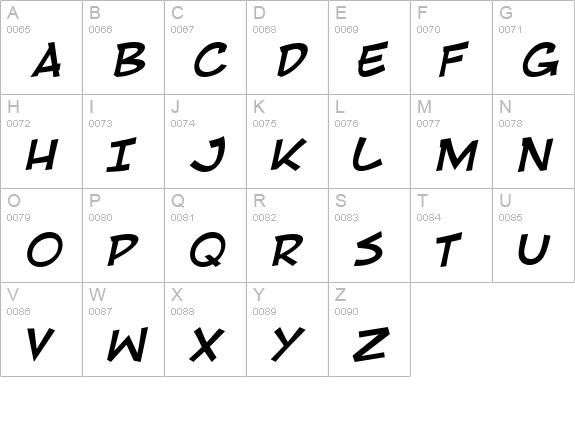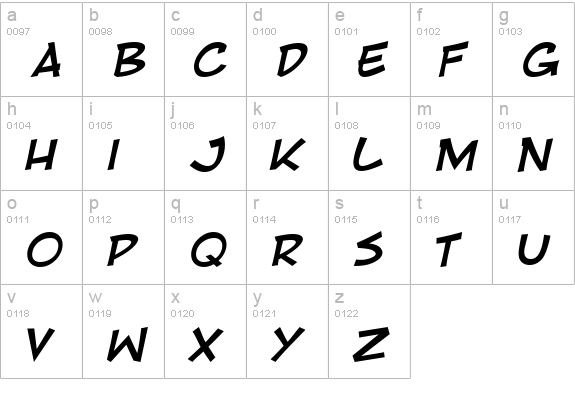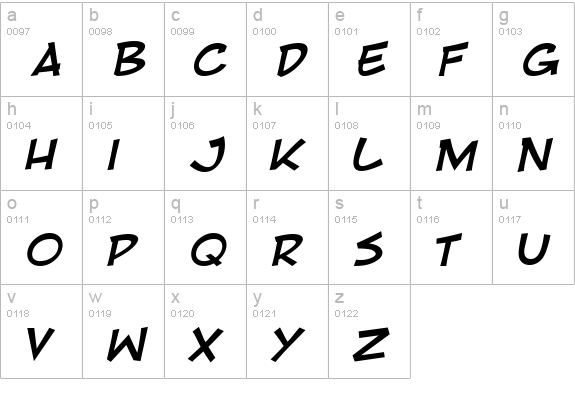
RivenShield Italic Font Details
RivenShield Italic is a distinctive, italic variant in the RivenShield typeface family \xE2\x80\x94 well suited to design and typography projects.
RivenShield Italic font is a striking and versatile typeface that exudes elegance and sophistication. Its sleek and stylish design makes it perfect for a wide range of design projects, from branding to editorial layouts. With its unique italicized style, RivenShield adds a touch of modernity and flair to any text or headline. What sets RivenShield apart is not just its stunning aesthetics, but also the fact that it is available for free download at FontsMarket.com. This means that you can easily access this premium font without any cost, making it an excellent choice for designers looking to elevate their work without breaking the bank. Whether you're working on a website, poster, or logo design, RivenShield Italic font is sure to make a bold statement and leave a lasting impression on your audience. Download it today and take your projects to the next level with this exceptional typeface.